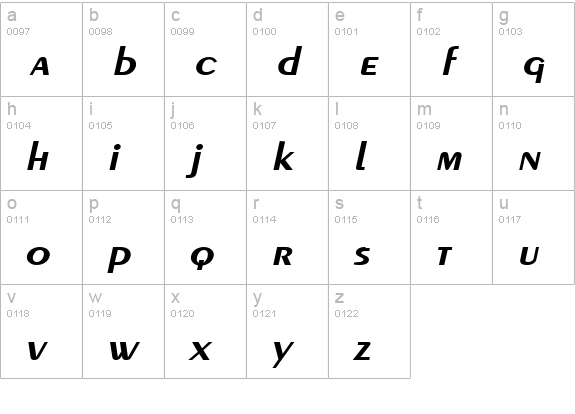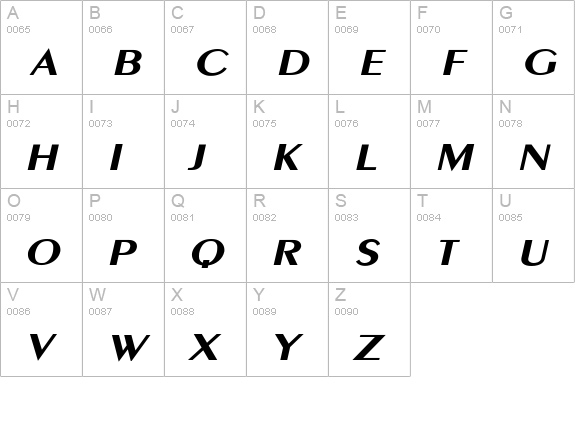
Pare Wide BoldItalic is a distinctive, extended-width variant in the Pare typeface family \xE2\x80\x94 well suited to design and typography projects.
Introducing Pare Wide BoldItalic, a robust and stylish font that exudes confidence and sophistication. This font is the perfect choice for projects that require a touch of elegance, yet still demand a strong presence. The BoldItalic variant of Pare Wide adds a bold and italicized twist to its already captivating design, making it even more eye-catching and versatile. Whether used for headlines, logos, or body text, this font effortlessly commands attention and leaves a lasting impression. What sets Pare Wide BoldItalic apart is not only its stunning aesthetics but also its accessibility. This font is freely available to download at FontsMarket.com, allowing designers, creatives, and enthusiasts to effortlessly incorporate it into their projects. With its sleek and bold letterforms, Pare Wide BoldItalic is adaptable to various design styles, from modern and futuristic to classic and timeless. This font effortlessly communicates a sense of strength and confidence, making it ideal for projects that require a bold statement. Overall, Pare Wide BoldItalic is a must-have font for those seeking a powerful and elegant typographic solution. Its availability as a free download at FontsMarket.com ensures that this font is accessible to all, making it a valuable addition to any designer's toolkit.